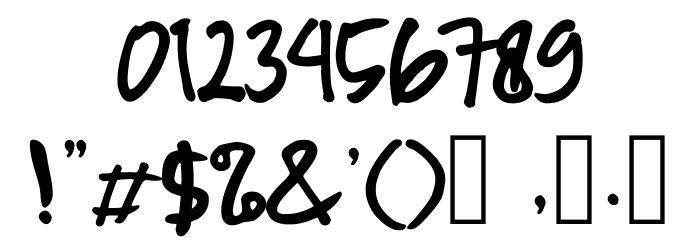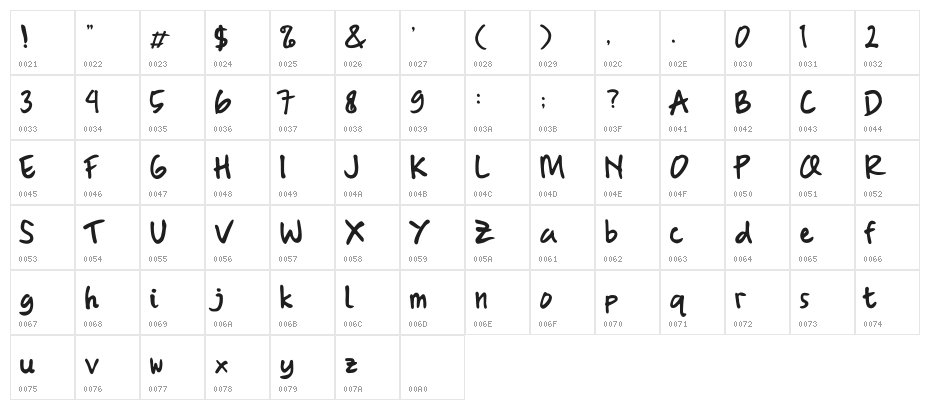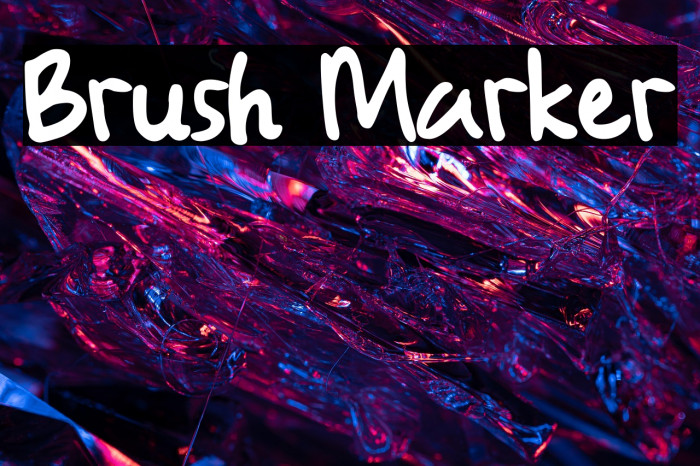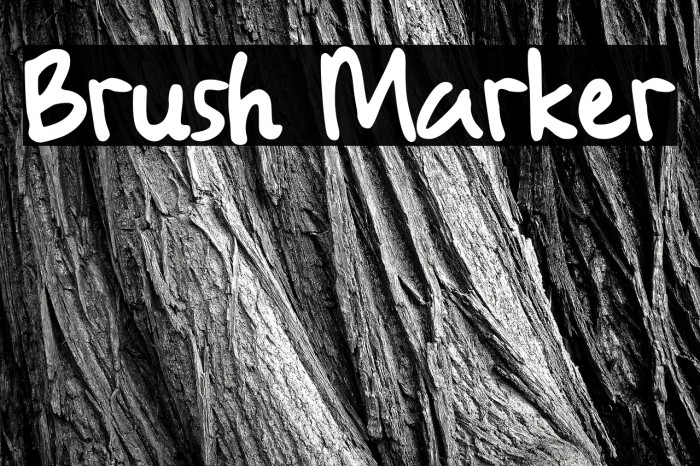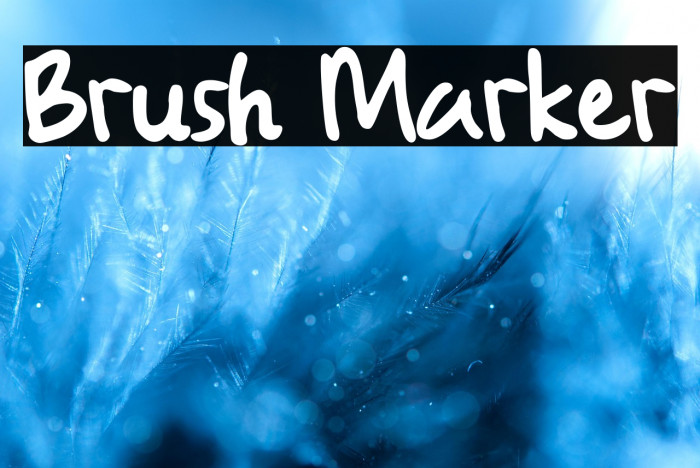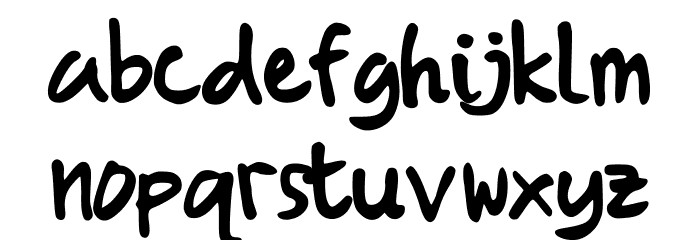
Brush Marker Font
Brush Marker Description
This font exudes a playful and energetic vibe, reminiscent of strokes made with a brush marker. The characters are bold and rounded, with a casual, handwritten style that suggests creativity and spontaneity. The uppercase and lowercase letters maintain a consistent flow, with slightly irregular shapes that add to the font's charm. The numbers and special characters are equally dynamic, making them suitable for a variety of informal and artistic applications. The overall appearance is lively and engaging, perfect for projects that require a personal touch.